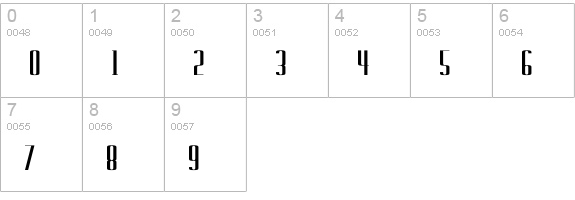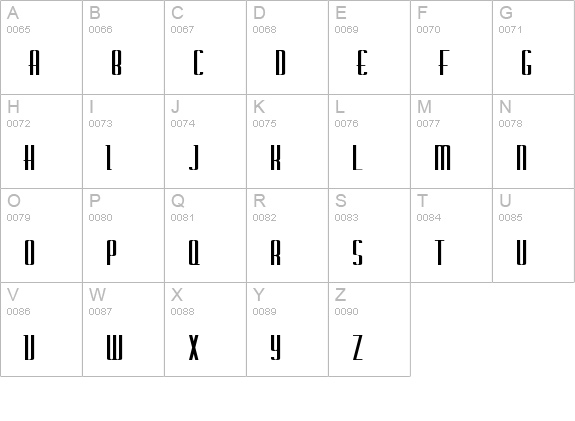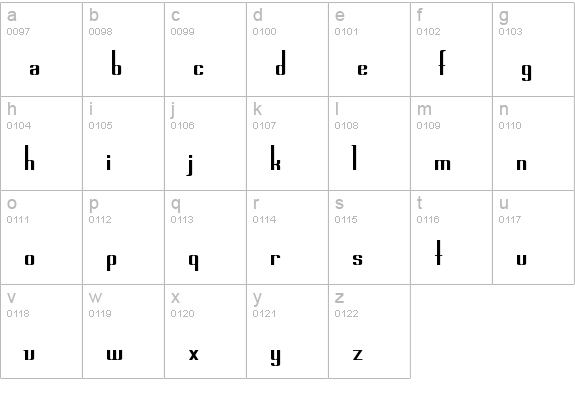
Rschasline Wd Bold Font Details
Rschasline Wd Bold is a strong, high-contrast variant in the Rschasline typeface family \xE2\x80\x94 well suited to headlines, attention-grabbing titles, and strong calls-to-action.
Introducing Rschasline Wd Bold font, a sleek and modern typeface designed to make your text stand out with its bold and elegant appearance. This font is perfect for headlines, titles, and any design project that requires a touch of sophistication. What sets Rschasline Wd Bold font apart is not only its striking design but also the fact that it is available for free download at FontsMarket.com. Now you can elevate your projects without breaking the bank, thanks to this stylish and versatile typeface. Whether you're creating a logo, poster, or website, Rschasline Wd Bold font will add a touch of professionalism and flair to your work. Download it for free today and start using this eye-catching font to make a lasting impression.